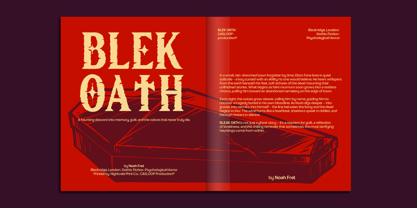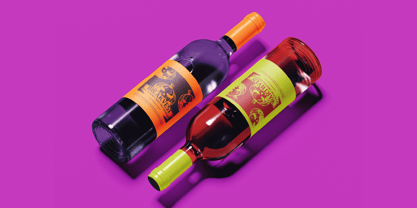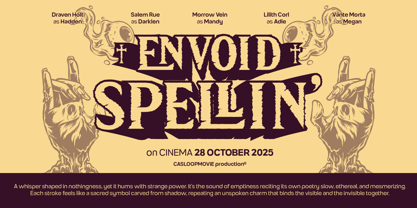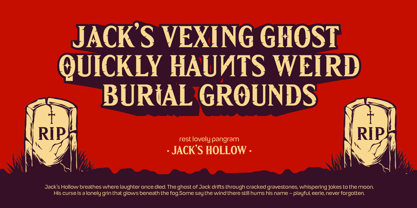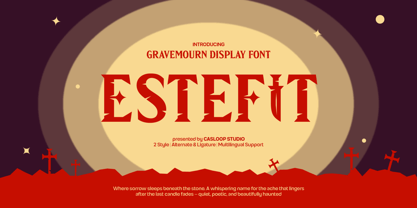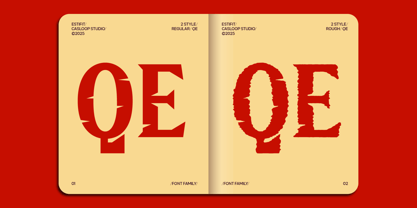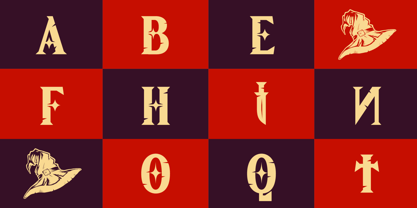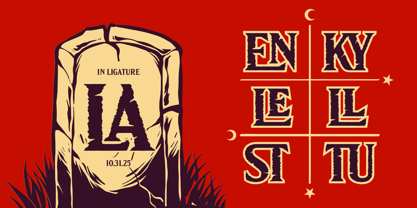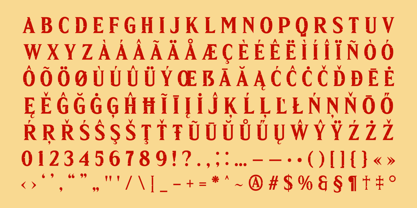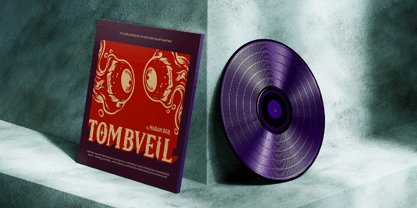
Estefit
The Estefit Font Family was designed by Wantara Putra and published by Casloop Studio. Estefit contains 2 styles and family package options. More about this family
ESTEFIT is a haunted display font that balances elegance and eeriness in every curve. It’s not just spooky it’s sophisticated. With strong vertical strokes, razor edged terminals, and a whisper of gothic allure, Estefit feels like a ghost in silk: graceful yet chilling. Each letter flows with quiet confidence especially the T, the spine of Estefit carrying its aura of mystery and refinement. The subtle rough texture makes it feel timeless and cinematic, perfect for designs that crave both drama and beauty. It’s the kind of font that doesn’t scream horror; it seduces it. Best For Halloween & gothic-themed luxury branding Editorials, book covers, or cinematic title designs Beauty, perfume, and dark fashion campaigns Event posters, haunted boutique identities With 2 styles Regular and Rough, Estefit adapts effortlessly between polished elegance and textured imperfection. Its extended multilingual support makes it global-ready, while its distinct vertical rhythm gives every headline a signature silhouette.